Punctuation series: The pilcrow
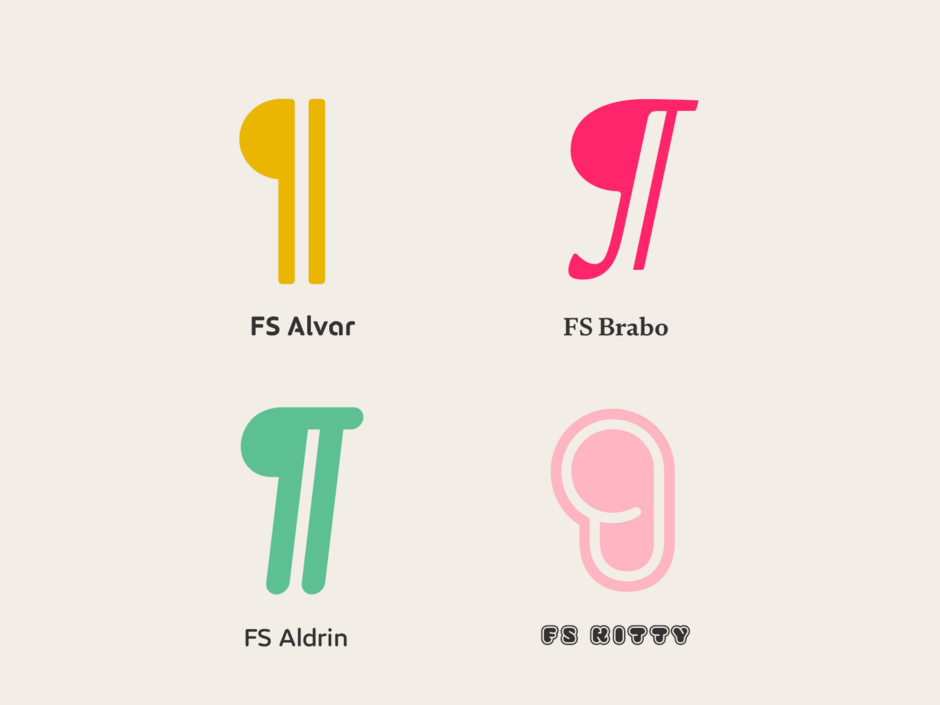
Punctuation series: The pilcrow
The pilcrow or paragraph symbol is also known as the alinea or blind P. It is used to represent individual paragraphs in a piece of text. Before its invention a range of other symbols were used from a small horizontal line to a K (for kaput the Latin for ‘head’) to a ‘C’ (for capitulum meaning ‘little head’). The sign eventually evolved from a ‘C’ with a vertical line through it, to the symbol we recognise today. The word pilcrow derives from the Greek word paragraphos.
When mechanised print took over manual lettering the pilcrow would be drawn in the space before the start of a paragraph by rubricators. This is where the indent came from – the character was phased out because it took too long to draw but the space for it remained.
Designing the Pilcrow is often a special moment when creating a typeface. It usually happens at an advanced stage when you are expanding the character set and designing a sequence of fairly dull, often characterless punctuation signs. When it’s time for the pilcrow, suddenly you have a bit more of freedom to create. There’s room to create something unique, or to incorporate some ownable characteristics from the letters’ design. For this reason the pilcrow is one of the most interesting punctuation signs to design – an oasis in the middle of standardised punctuation characters and symbols. In my opinion the pilcrow is a character for the typeface designer to experiment with.
Modern day use
Although not often used to mark out every paragraph the pilcrow has several interesting modern day uses:
- In programs such as MS Word there is an option to show formatting and when turned on the pilcrow symbolises the end of a paragraph (in Word go to the home tab and click the ¶to turn them on and off).
- In legal copy the symbol is used to cite particular paragraphs in other documents like in the example below:
‘The defendant has the option to offer compensation but ¶17 of the agreement suggests it is not required.’
- In proofreading it can be used to indicate where one paragraph should be split into two.
- The pilcrow is also used in footnotes but is sixth in the sequence which starts with an asterisk and includes the dagger and double dagger.